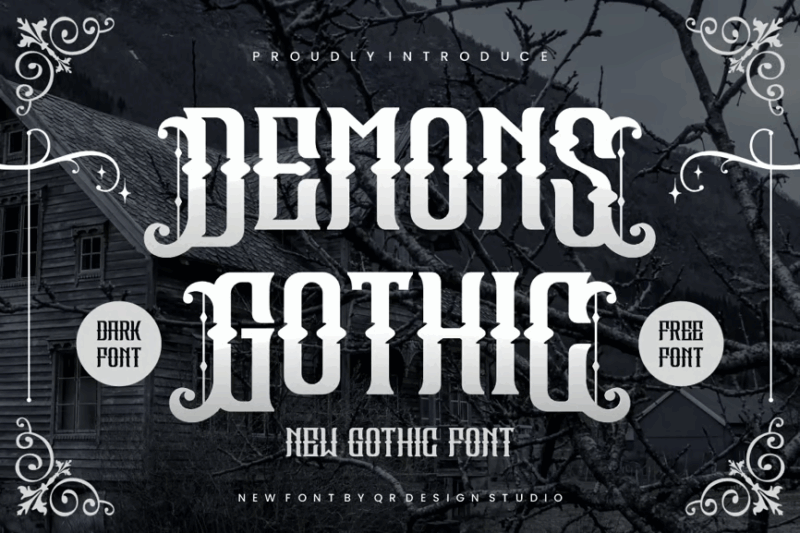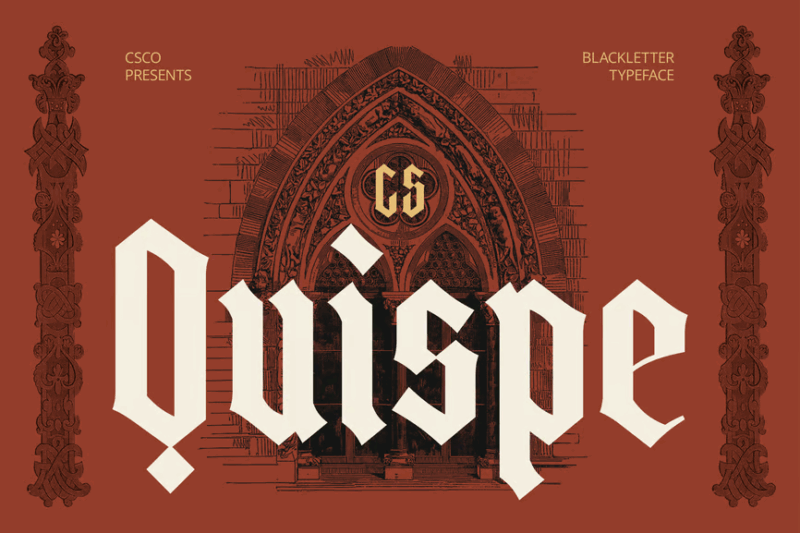
If you’ve always been fascinated by the dark romanticism of medieval aesthetics, then Gothic Fonts are your bread and butter. There’s something utterly captivating about these dramatic typefaces that transport us straight back to ancient cathedrals, mysterious manuscripts, and candlelit chambers.
Gothic fonts aren’t just about looking intimidating or spooky (though they certainly excel at that). These typefaces embody centuries of typographic heritage, carrying the weight of history in every dramatic flourish and angular stroke. From the ornate Black Letter scripts of medieval scribes to modern interpretations that blend gothic sensibilities with contemporary design, these fonts are storytelling powerhouses.
Whether you’re designing for a metal band, crafting invitations for a Halloween party, or building a brand that needs serious gravitas, gothic fonts deliver that perfect blend of elegance and edge that’s impossible to ignore.
In this deep dive, we’ll explore the most bewitching gothic fonts of 2026, uncover what makes these typefaces so mesmerizing, and discover how to wield their power in your own designs. So dim the lights, light a candle, and let’s embark on this typographic journey into the shadows!
The Most Darkly Divine Gothic Fonts of 2026
Not all gothic fonts are created equal – some whisper dark secrets while others scream medieval drama. I’ve curated a collection of the most striking gothic typefaces that are making waves in 2026. Here are the fonts that will add serious mystique to your designs:
Cattedrale – Gothic Blackletter
Cattedrale is a striking Gothic blackletter font with decorative elements and symbols. It embodies the classic blackletter style with a modern twist, perfect for creating dramatic and impactful designs with a medieval flair.
Shillow Gothic Font
Shillow is a decorative Gothic font that blends traditional Gothic elements with modern aesthetics. Its unique character makes it ideal for creating eye-catching headlines, logos, and display text with a touch of elegance and mystery.
Blacker Gothic
Blacker Gothic is a serif font that combines Gothic and old-style elements. It offers a timeless look with a hint of antiquity, making it suitable for projects that require a classic yet sophisticated typographic approach.
Killuminati – Gothic Type
Killuminati is a bold and dramatic Gothic typeface with decorative and serif elements. This display font combines blackletter styling with modern flair, perfect for creating intense, attention-grabbing designs with a dark edge.
Swordstone – Gothic Typeface
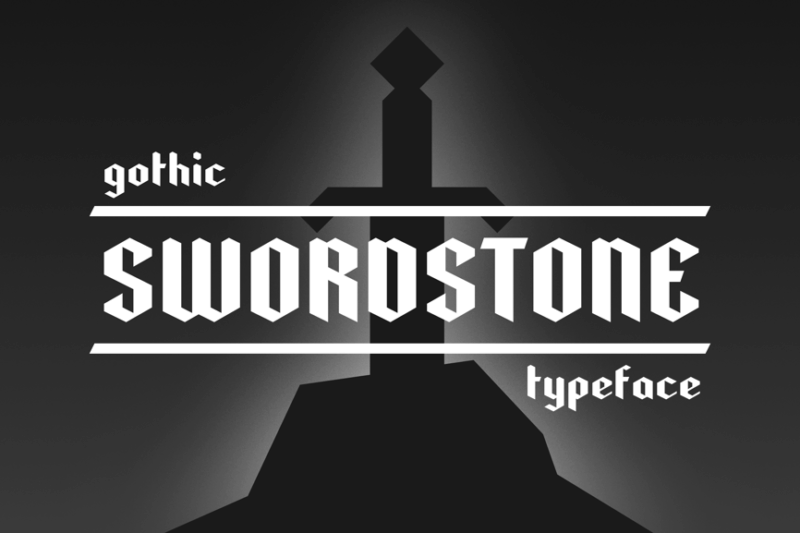
Swordstone is a decorative Gothic typeface with a mystical touch. Its unique letterforms evoke a sense of fantasy and ancient lore, making it ideal for book covers, game titles, or any design requiring a touch of medieval magic.
Grenosa Gothic Font
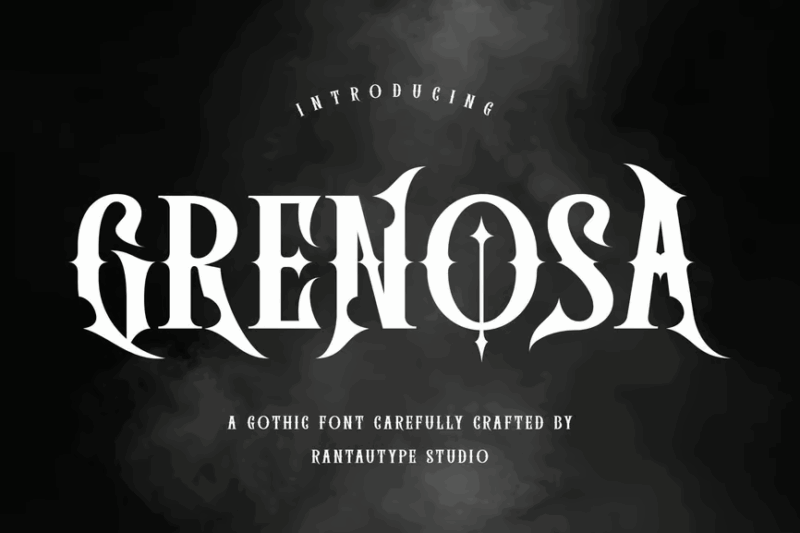
Grenosa is a serif Gothic font with decorative Victorian influences. Its elegant and ornate design makes it perfect for creating sophisticated logos, headlines, or decorative text in projects that require a touch of historical charm.
Crestfallen – Gothic Font
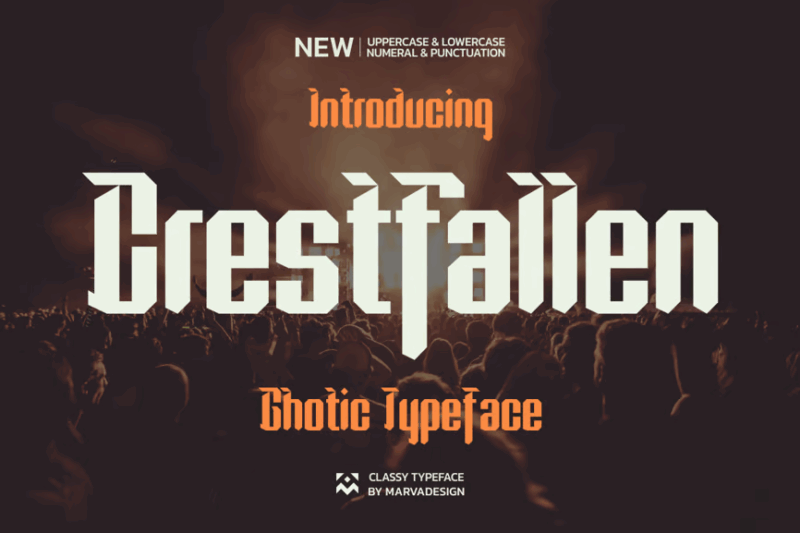
Crestfallen is a sans-serif Gothic display font with a unique, edgy character. Its bold and slightly distressed appearance makes it ideal for creating impactful designs in music, fashion, or alternative culture-related projects.
Andalucya – Gothic Typeface
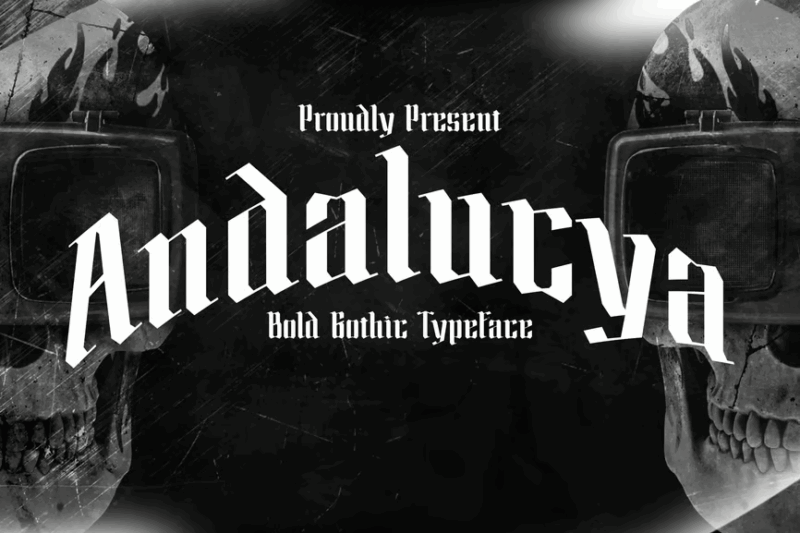
Andalucya is a decorative Gothic typeface with a unique and intricate design. Its elaborate letterforms and ornamental details make it perfect for creating stunning headlines, logos, or decorative text in projects that require a touch of exotic elegance.
Blatters – Gothic Font
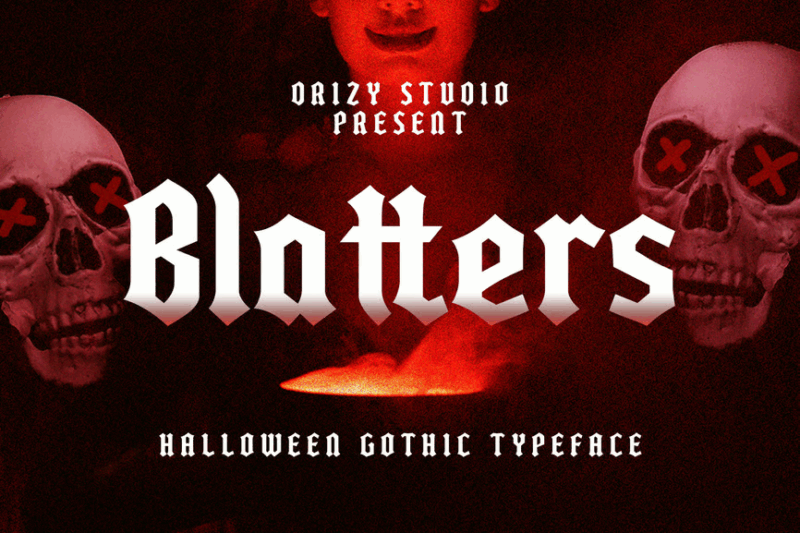
Blatters is a serif Gothic font with a horror-inspired twist. Its eerie and unsettling design makes it perfect for creating chilling titles, posters, or text for horror-themed projects or Halloween designs.
Groundead – Gothic Font
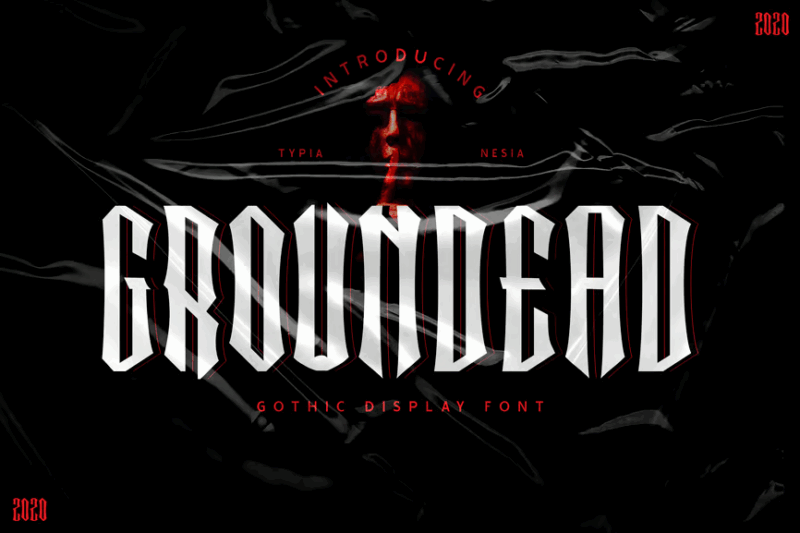
Groundead is a serif Gothic font with decorative blackletter elements. Its bold and slightly grungy appearance makes it ideal for creating impactful display text, logos, or titles in alternative, rock, or metal-themed designs.
Wild Gothic – Experimental Blackletter
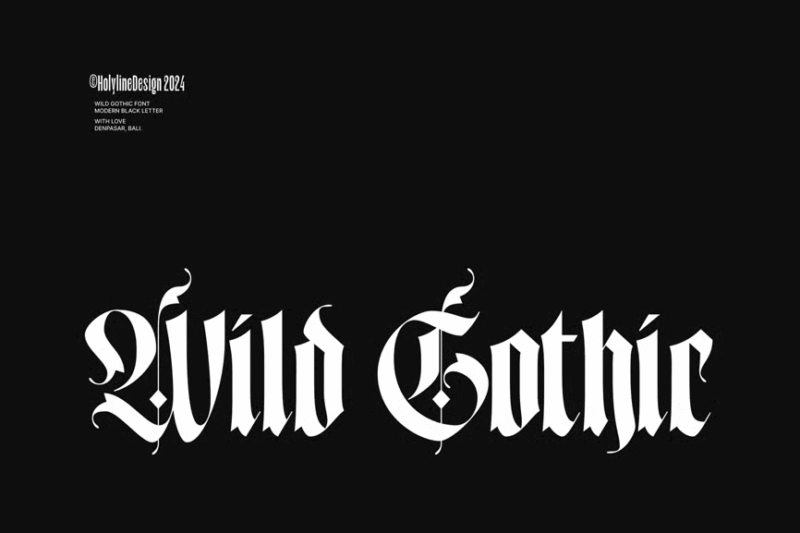
Wild Gothic is an experimental blackletter font with a condensed and edgy design. Its unique and unconventional letterforms make it perfect for creating bold, attention-grabbing headlines or logos in modern, urban-inspired projects.
Gothic – Modern Blackletter Font
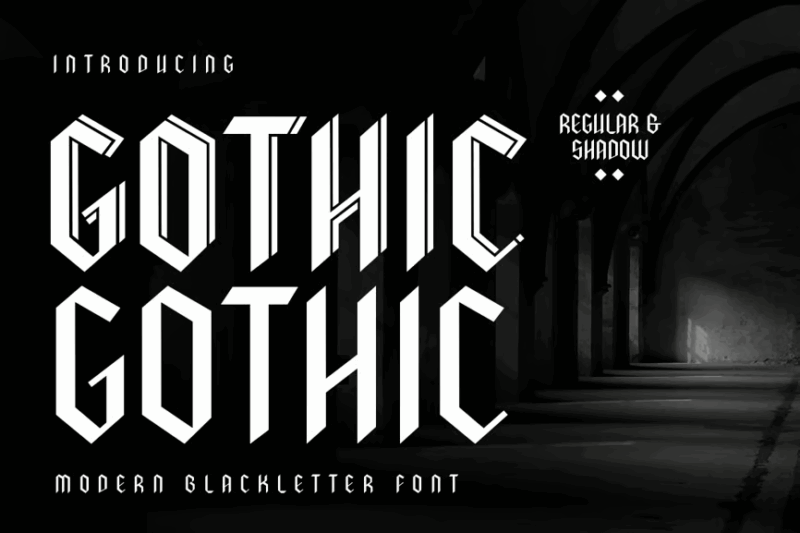
The key to successfully using gothic fonts lies in understanding their history, respecting their power, and applying them thoughtfully. When used with intention and restraint, these dramatic typefaces can transform ordinary designs into extraordinary experiences.
So go ahead, embrace the gothic aesthetic in your next project. Let these fonts whisper ancient secrets and cast their typographic spells. In a world of safe, sanitized design choices, sometimes what you need is a little medieval magic to make your work truly unforgettable.